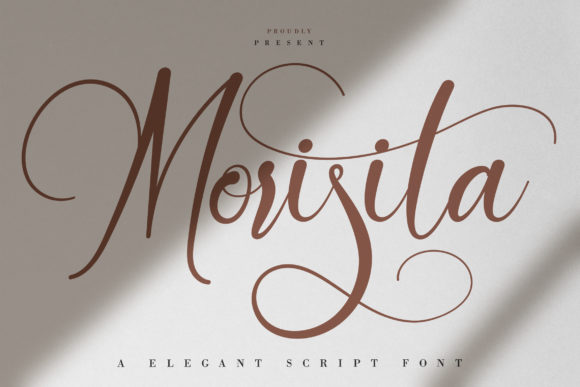
Morisita Font
Introducing Morisita, a calligraphy script font that exudes elegance and charm. Its graceful lines and flowing strokes will add a touch of sophistication to your designs, making them stand out from the crowd. With its alluring appeal, Morisita is perfect for creating personalized invitations, heartfelt letters, stunning logos, and eye-catching social media posts.
Unlock the beauty of Morisita and let its enchanting characters dance across your digital canvas. Experience the joy of crafting designs that resonate with your audience, leaving an indelible mark on their hearts. From heartfelt wedding invitations that celebrate the union of two souls to personalized logos that embody the essence of your brand, Morisita is your trusted companion in the world of typography.
Feel the warmth of Morisita's embrace as it transforms your words into captivating works of art. Its effortless style lends itself perfectly to a wide range of creative projects, from heartfelt letters that convey your deepest emotions to stunning social media posts that capture the attention of your followers. Unleash your creativity and let Morisita guide you towards typographic excellence.
Immerse yourself in the world of Morisita, where every letter is a stroke of brilliance. Its versatility knows no bounds, allowing you to effortlessly adapt it to any design concept. Whether you're crafting elegant wedding invitations, creating personalized logos that speak volumes about your brand, or designing social media posts that ignite conversations, Morisita is your ultimate choice for achieving typographic greatness.